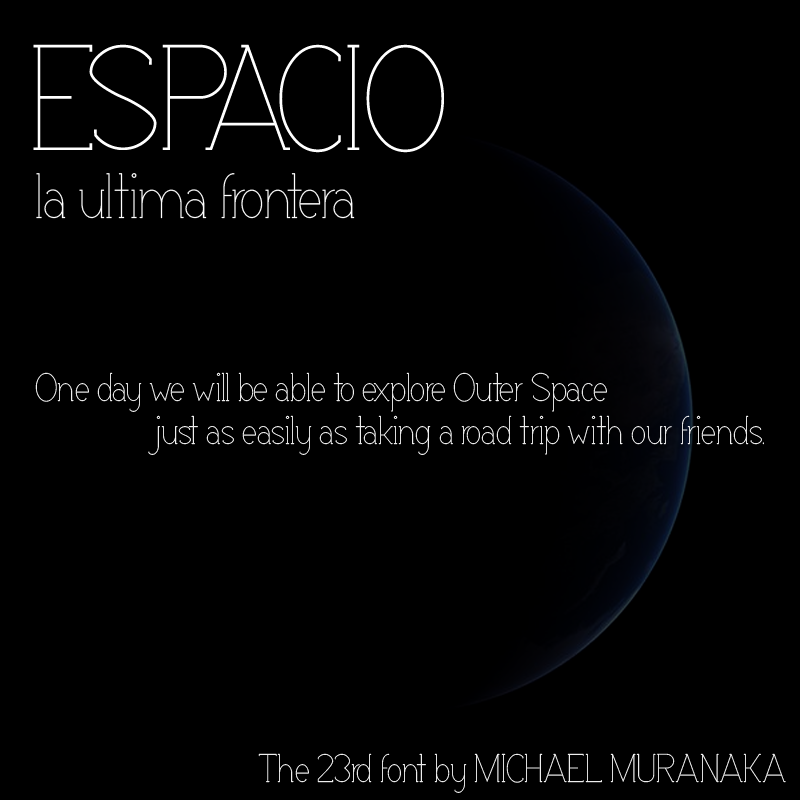
Preview and download Espacio Font. Created by MuraKnockout Media + Design in Basic Serif styles with 100% Free license.
Check out my new Font Blog to stay up to see when I release new fonts! http://murafonts.blogspot.com/ ----------------------- This is a nice, tranquil, happy serif font for your collection. It has thin lines and a fun personality. It is pretty complete so it could be used for website embedding. It could also be used for logos, ad copy, signage, or any other cute little thing your imagination can create! ----------------------- This is free to do with whatever you wish, personal or commercial. Just don't claim ownership, sell it, redistribute it, or be a jerk with it. Please DO NOT download this font and redistribute it on another website!!! It might be cool if you use the font to either credit MuraKnockout Media or Michael Muranaka, or show me how you used it! Enjoy! |